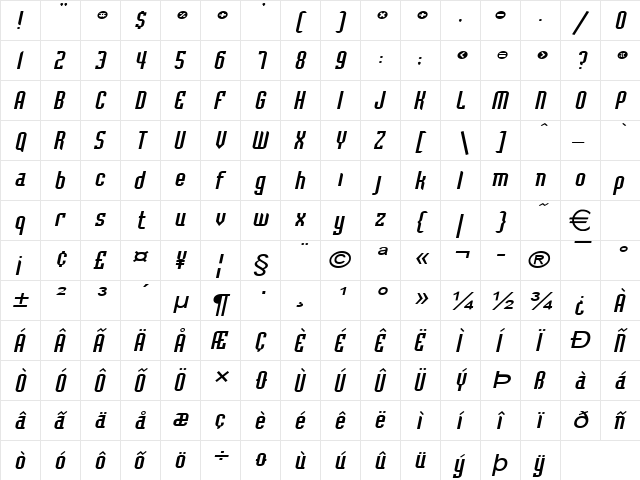
FlintstoneExtended Italic
Design Context for FlintstoneExtended Typeface
FlintstoneExtended takes a measured approach to typography — its balanced proportions and neutral character make it a reliable workhorse for both digital and print work. Its italic angle brings a sense of urgency and motion to the letterforms.
Pro Tip: Use FlintstoneExtended for emphasis, pull quotes, and subheadings where its slanted energy can add rhythm to the layout.